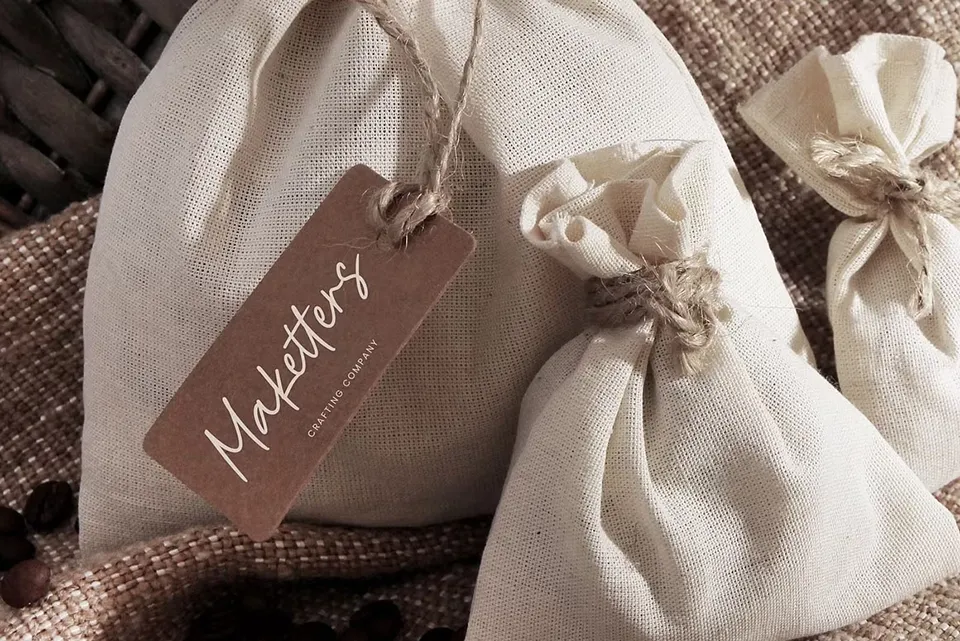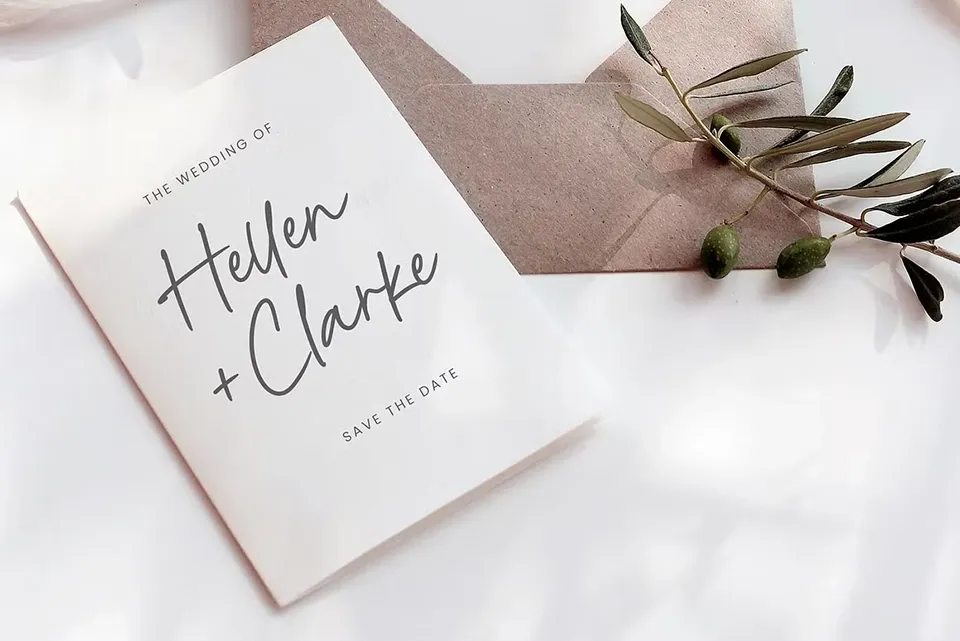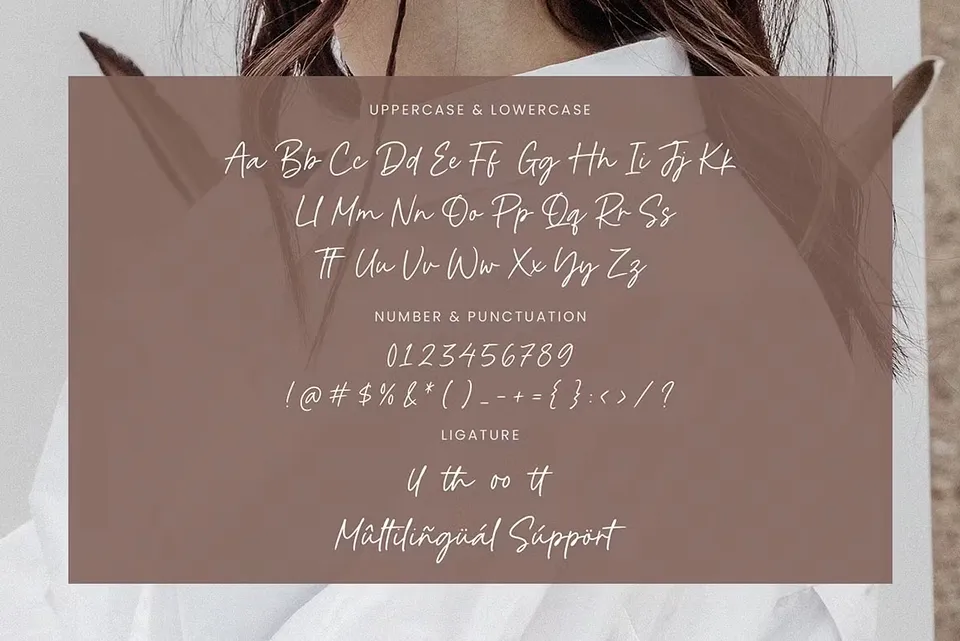
Queen Smoothie Font
Queen Smoothie Font, designed by timur type, is presented as a handwritten script typeface with a modern and elegant aesthetic. It features smooth, flowing monoline strokes that maintain a consistent weight, giving it a clean and refined appearance. The characters connect seamlessly with graceful curves and understated loops, projecting a chic and sophisticated vibe. This font mimics stylish handwriting, making it ideal for branding projects, logos, invitations, feminine signatures, social media graphics, and any design seeking a blend of personal touch and contemporary polish. Queen Smoothie brings effortless charm to creative work.